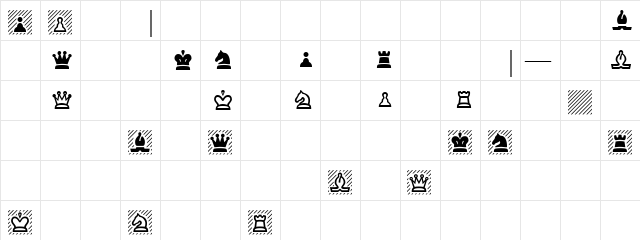
ChessSSi Regular
Design Context for ChessSSi Typeface
ChessSSi takes a measured approach to typography — its balanced proportions and neutral character make it a reliable workhorse for both digital and print work.